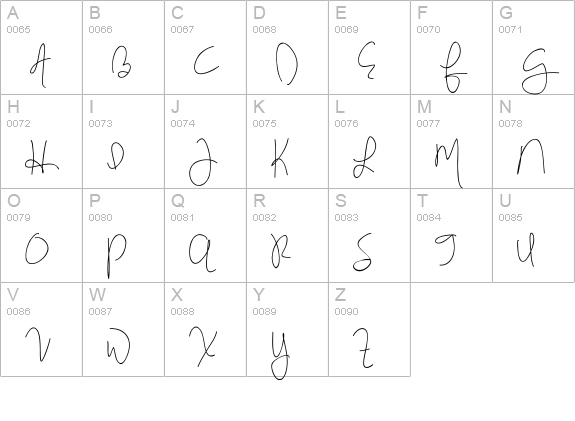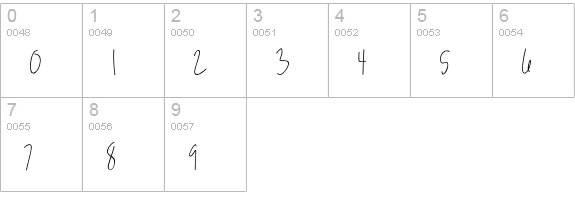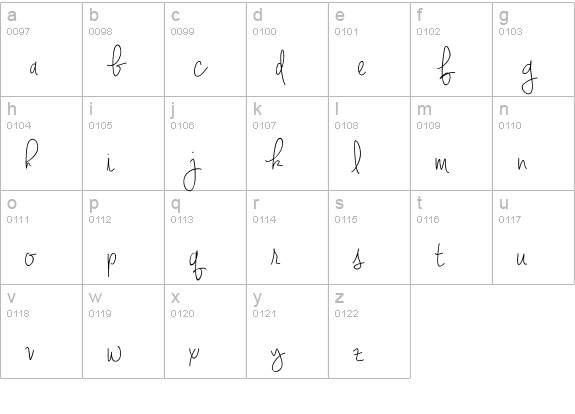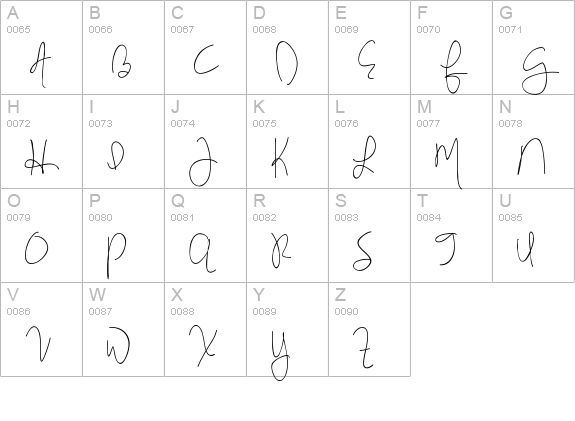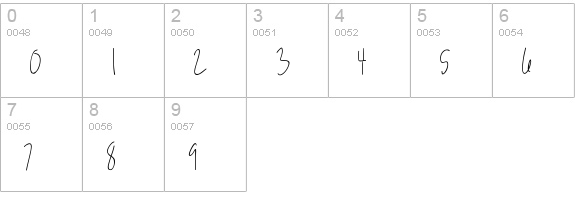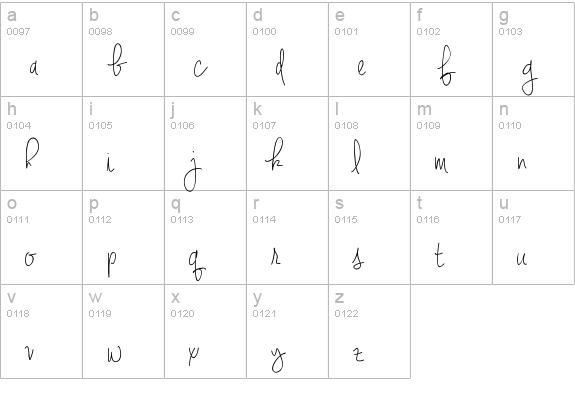
Jennifer Lynne is a free for personal use font in the Fancy > Feminine category. It has been downloaded 399 times and is available for Windows, Mac and Linux.
Jennifer Lynne font is a beautifully crafted typeface that effortlessly captures the essence of elegance and sophistication. Its delicate curves and graceful strokes lend a touch of femininity, making it the perfect choice for projects that require a refined and stylish look. The font's versatility allows it to be used in a variety of design applications, be it branding, invitations, or editorial work. What makes Jennifer Lynne font even more appealing is that it is available for free. Yes, you heard that right – this stunning font can be freely downloaded at FontsMarket.com. This means that you can enhance your creative projects without having to worry about any additional costs. Whether you are a professional designer or an aspiring artist, Jennifer Lynne font is the ideal resource for adding a touch of elegance to your work. With its wide range of characters and exquisite details, Jennifer Lynne font offers endless possibilities for customization. Its clean and legible design ensures readability, even at smaller sizes, making it suitable for both print and digital platforms. The font's timeless appeal and classic aesthetic make it a go-to choice for designers looking to create visually captivating and memorable designs. So why wait? Download Jennifer Lynne font for free at FontsMarket.com and unlock a world of creative possibilities. Whether you are designing a logo, crafting a wedding invitation, or working on a magazine layout, this font will elevate your project to new heights of elegance and sophistication. Don't miss out on this incredible opportunity to enhance your designs with this stunning and freely available typeface.